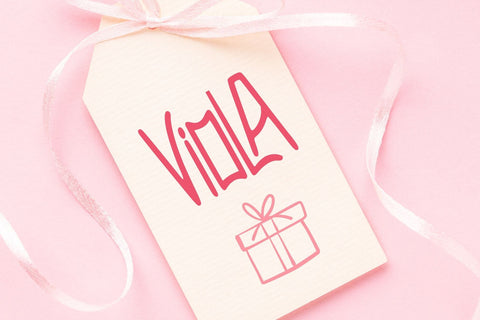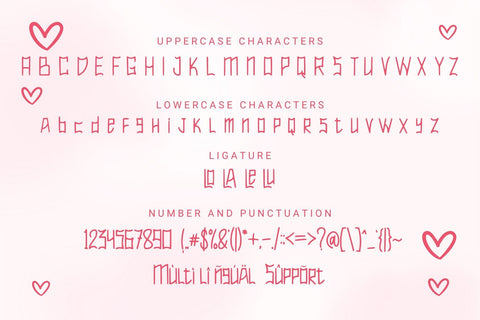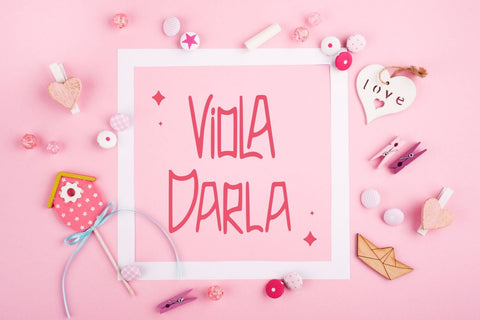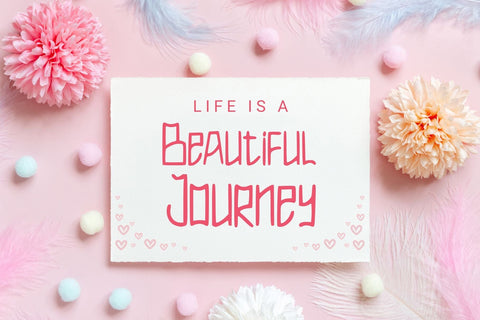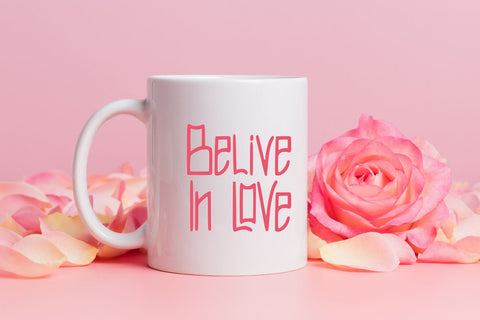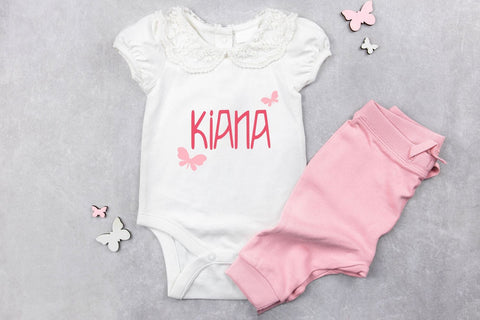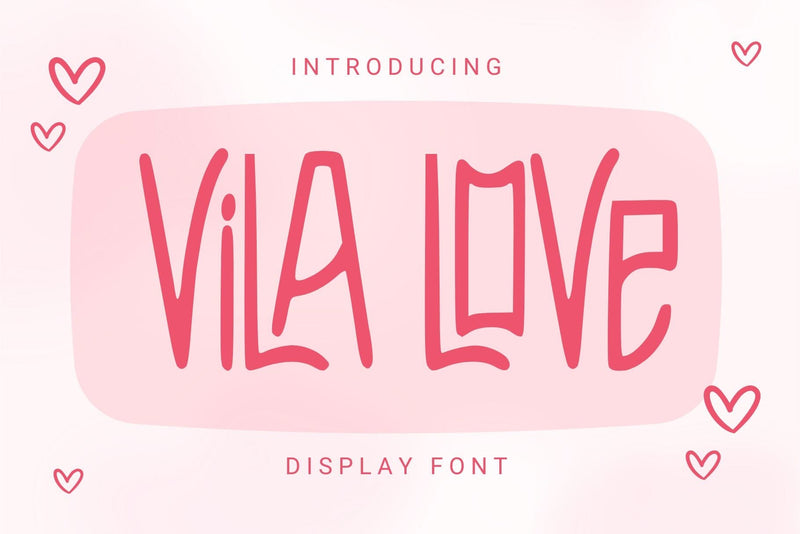
Vila Love - Display Font
Vila Love is a bold display font with a romantic touch, perfect for headlines, posters, and branding. Its striking design and playful curves create a captivating visual impact, ideal for projects needing a charming and modern style.